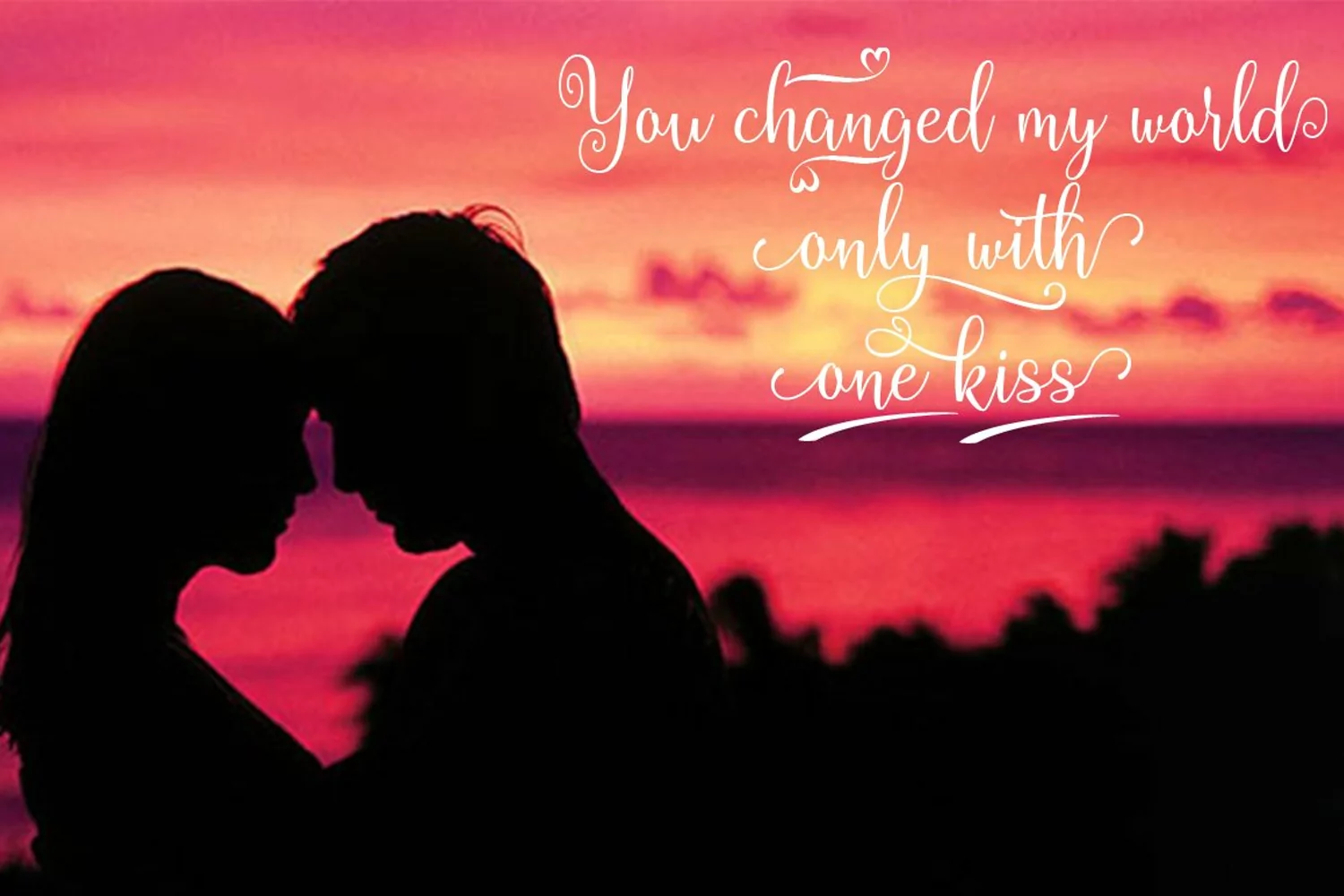
Angelia is a font that made the hand by having the character up and down like a dancer. Angelia has a very unique style of calligraphy, it is very suitable for use in the work of modern design. combines from copperplate to contemporary typeface with a dancing baseline, modern and elegant touch. Angelia features 404 glyphs and alternate characters Include . including initial and terminal letters, alternates, and multiple language support.The Features of this fonts is;
Stylistic Alternates
Initial Alternates
Terminal Alternates
Stylistic sets
PUA Unicode (Private Use Areas)